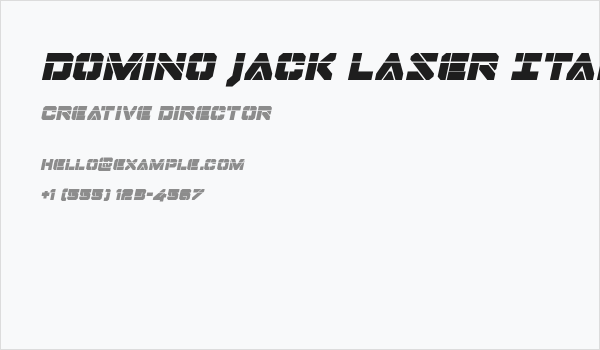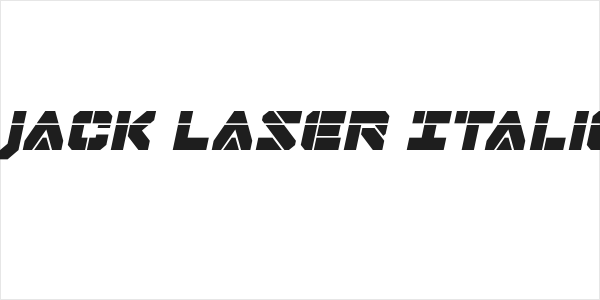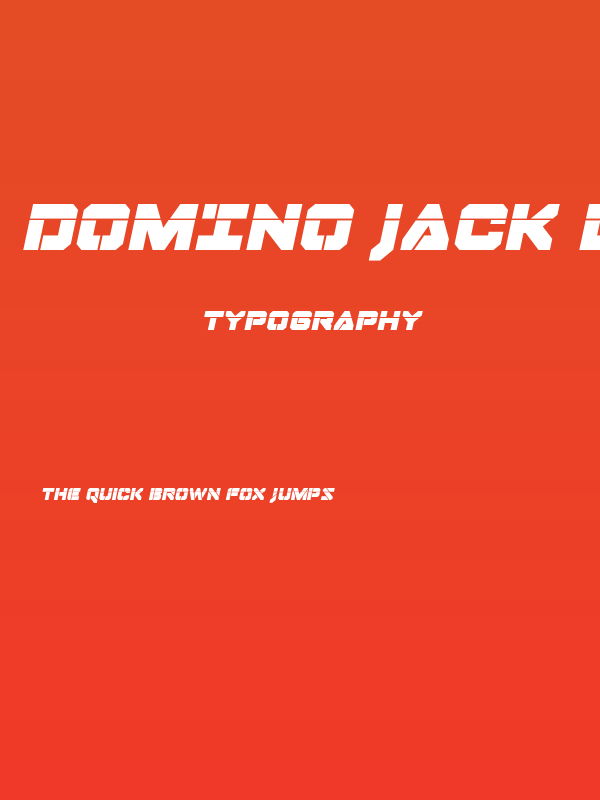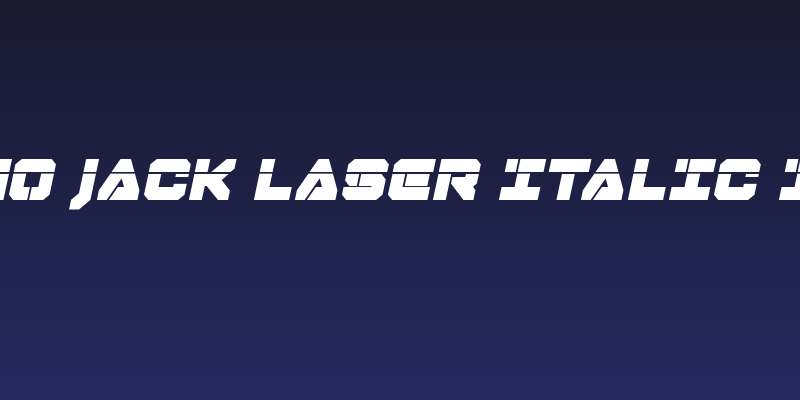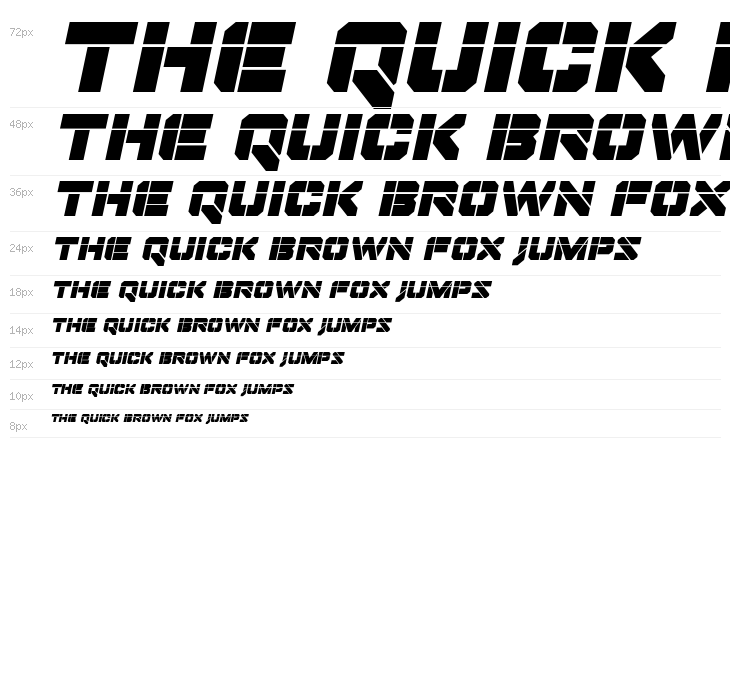
Domino Jack Laser Italic Italic Font
Domino Jack Laser Italic Italic Description
This font features a bold and futuristic design with a distinct italic slant, giving it a dynamic and energetic appearance. The characters are constructed with sharp angles and geometric shapes, creating a sense of movement and modernity. The uppercase and lowercase letters maintain a consistent style, with the uppercase being particularly striking due to their boldness and angularity. Numbers and special characters follow the same design principles, ensuring uniformity across all glyphs. The font's unique style makes it stand out, making it suitable for attention-grabbing headlines or branding projects.
| Proposed Projects | Ideal for sci-fi themed designs, tech branding, video game titles, and modern advertising. |